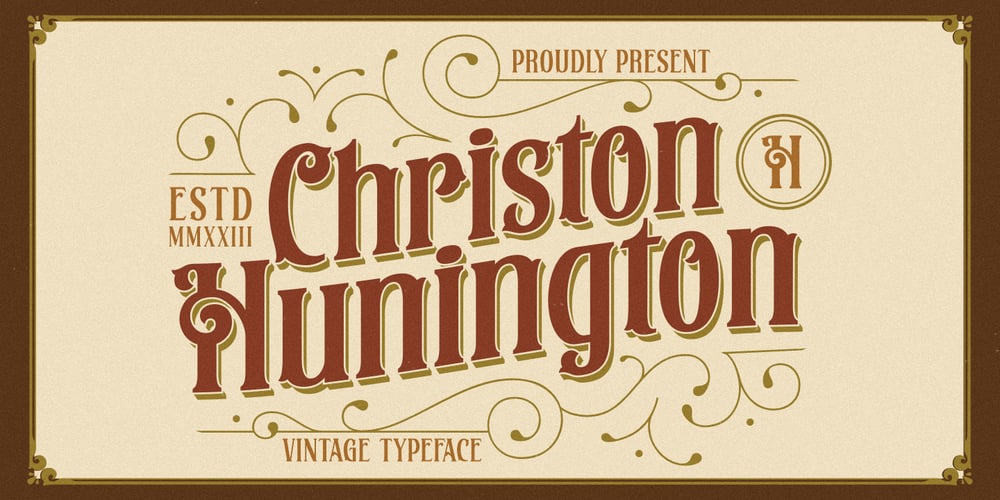
Christon Hunington Font Family was designed by Burhan Afif and published by HansCo. Christon Hunington contains 1 styles and family package options. Christon Hunington is a Vintage typeface font, it will add an old-time charm to any design project. It was made with the intention of being used for product Logo like a Pomade, Coffee, Barber shop or packaging label. It’s great also for Branding, Logo designs, Lettering, Logotype, Craft, Posters and much more.Features : Uppercase & Lowercase Numbers & Punctuation Multilingual Alternate character & ornament How to access alternate / ornament ? : https://hanscostudio.com/tutorial/Enjoy!